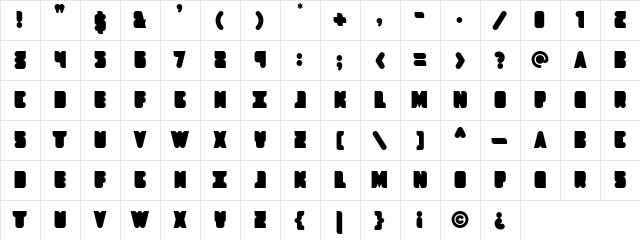
Dropship Regular
| Foundry | Lincoln Jones |
| Designer | Lincoln Jones |
Design Context for Dropship Typeface
Dropship is a composed and adaptable typeface that performs quietly and consistently across a wide range of design contexts.